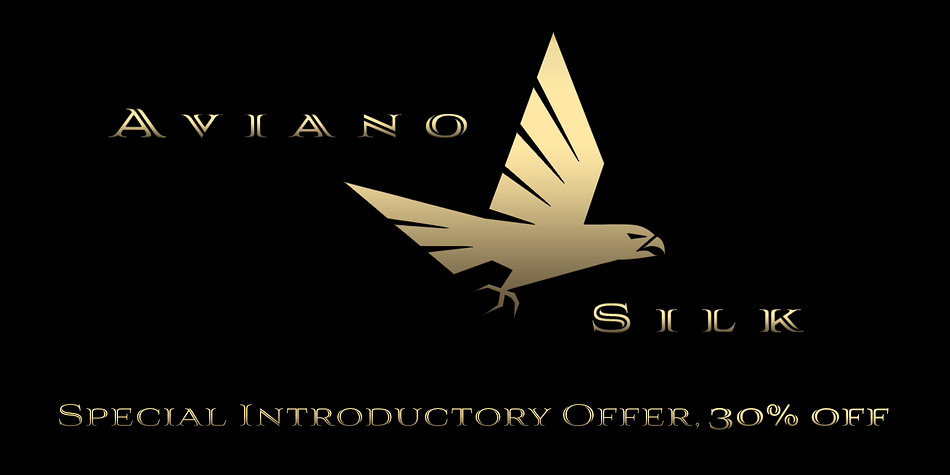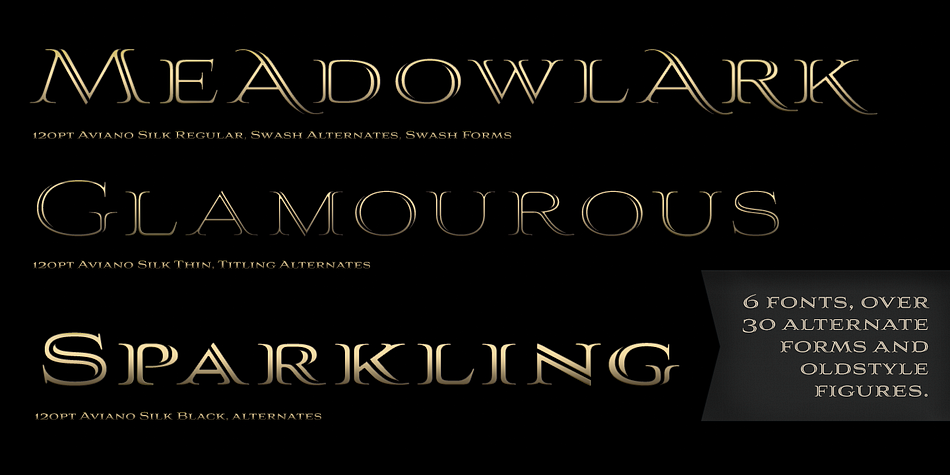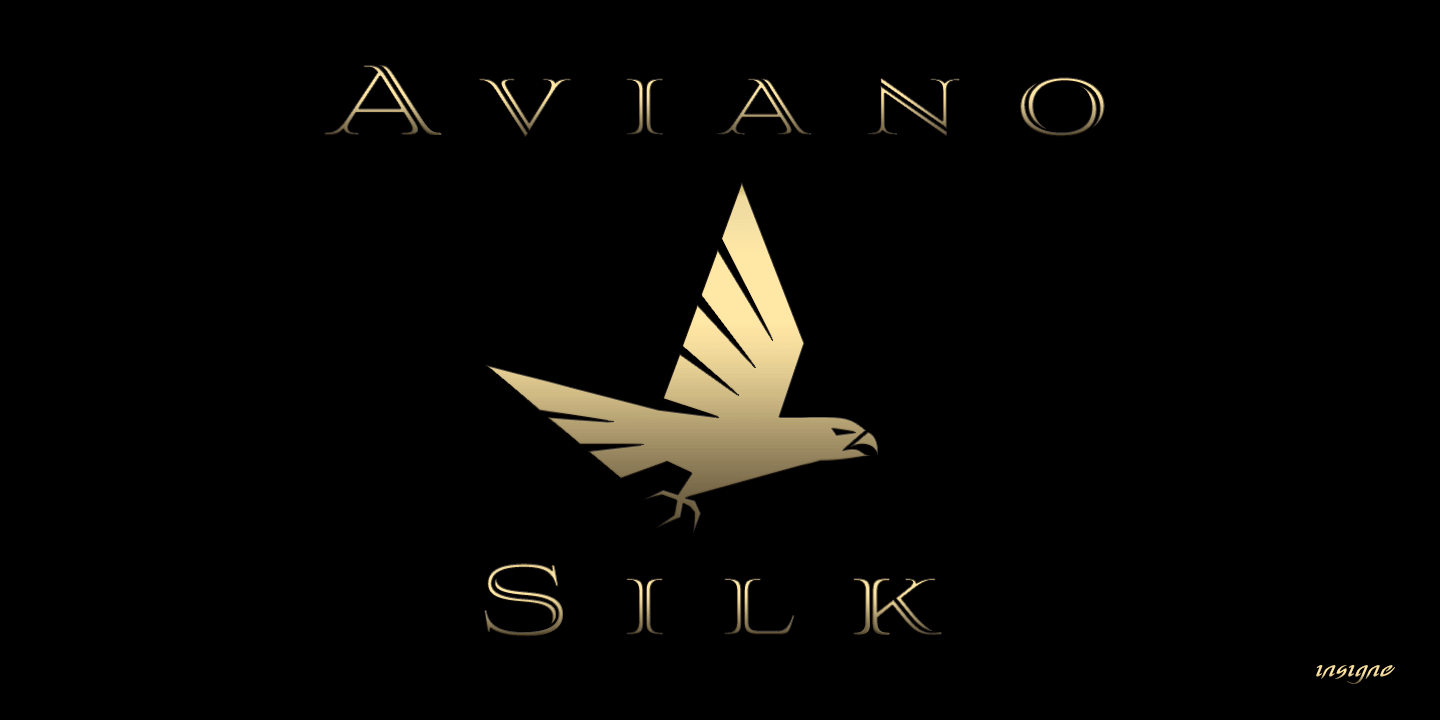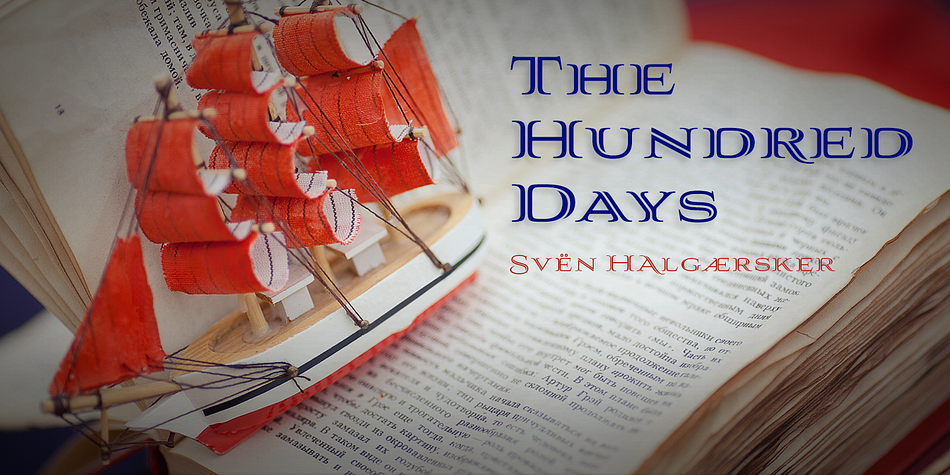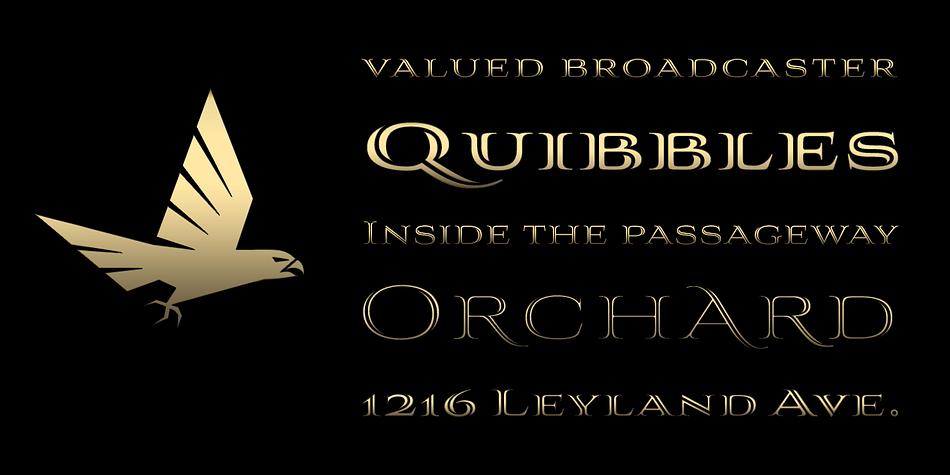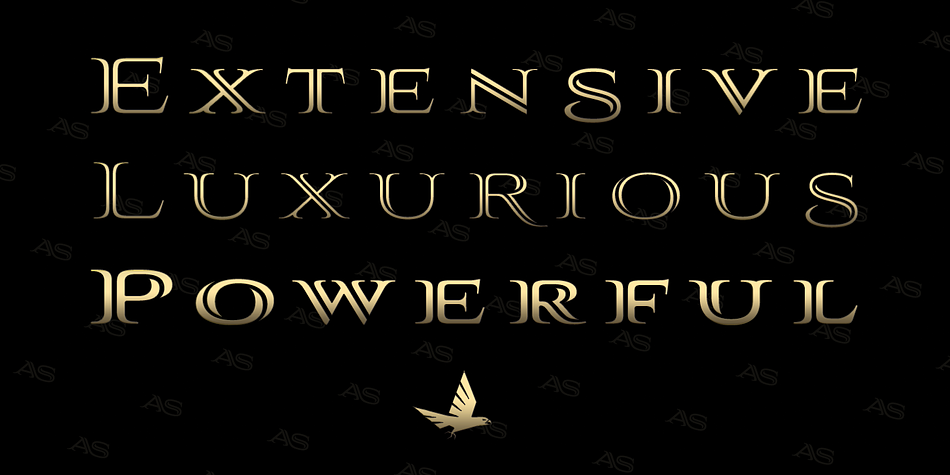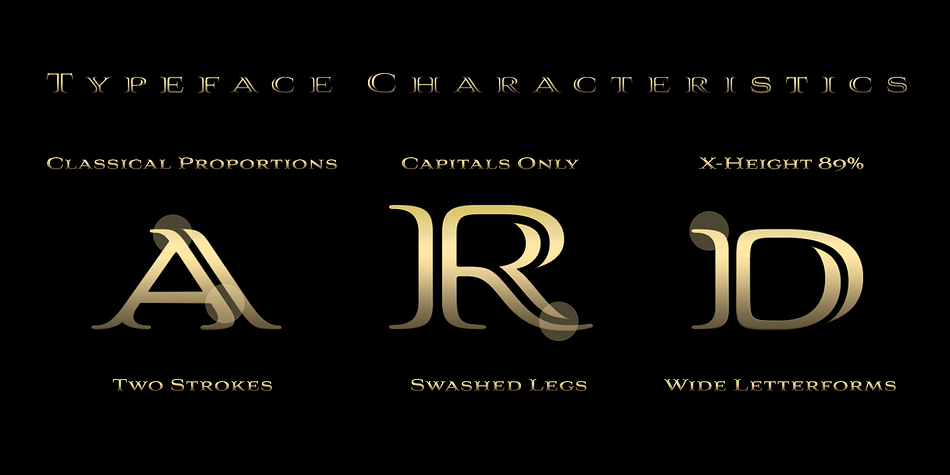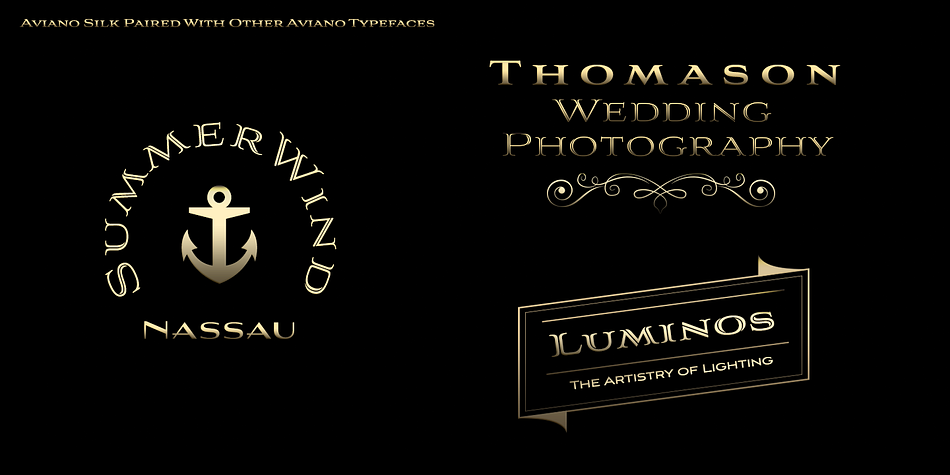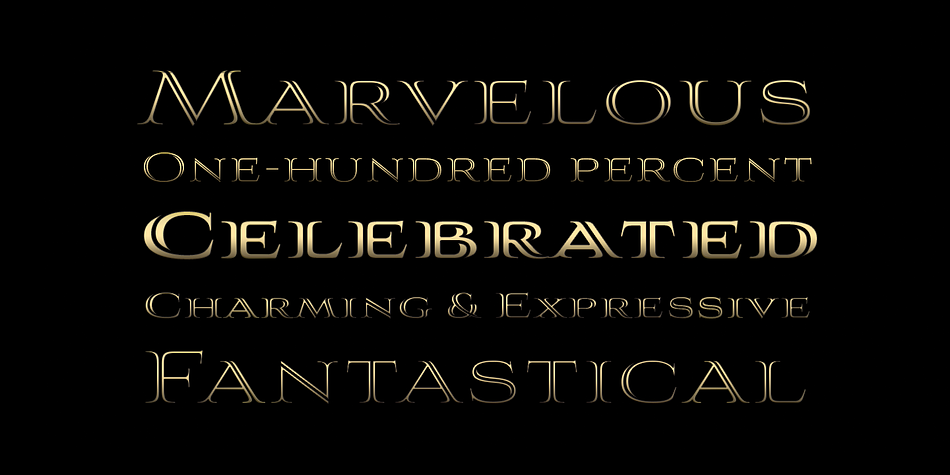
Designed by Jeremy Dooley, Aviano Silk is a display serif font family. This typeface has six styles and was published by Insigne Design.
A premier product from insigne, the powerful Aviano redefines its classic lines for the contemporary elegance of Aviano Silk. As part of insigneís annual tradition in adding to the Aviano family, this modern development of a timeless font was selected the clear leader in a poll of insigne designís social media followers.
Silk refers to the smooth, flowing feel created by the fontís negative space, allowing for easy progress as the reader moves over the text. This sophisticated merge of stencil and centerline provides you with a typeface particularly suited to high-end luxury applications and branding. In addition, the extended characters give you more options for formality and a heightened sense of wealth and power in your project.
Due to the modifications required for the new look, the Silk family is unable to work as an overlay for Aviano, though it purposely pairs with Aviano nicely. Use any of the 12 Aviano families with Silk to build a refined, integrated product that can style even the most ordinary page.